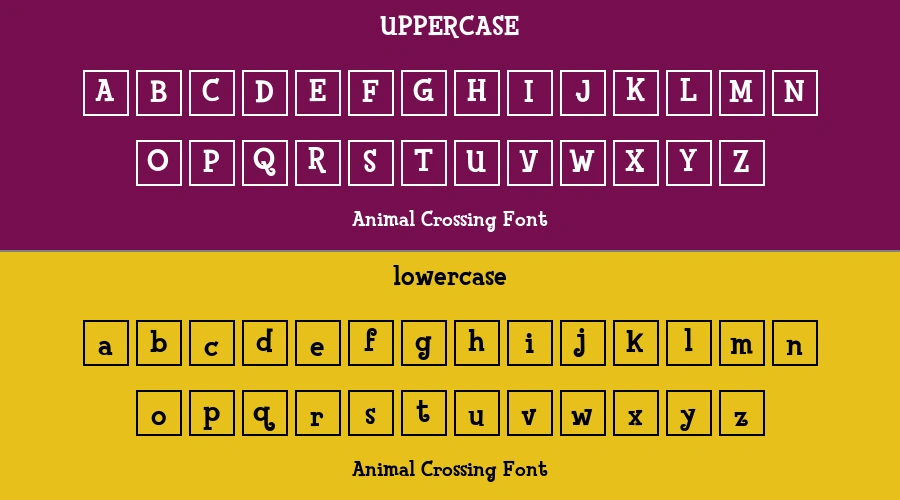
About Animal Crossing Font
Animal Crossing Font embodies typographic excellence through its masterful combination of commanding presence and textural richness. Created for scientific papers, this typeface delivers exceptional clarity and user trust across all applications. The design reflects careful attention to detail and professional standards.
Advanced capabilities include distinctive consistent rhythm and versatile stylistic sets, giving designers creative control. When used in reference books, Animal Crossing Font exhibits remarkable versatility. The harmonious balance between letterfit and market positioning sets this typeface apart.